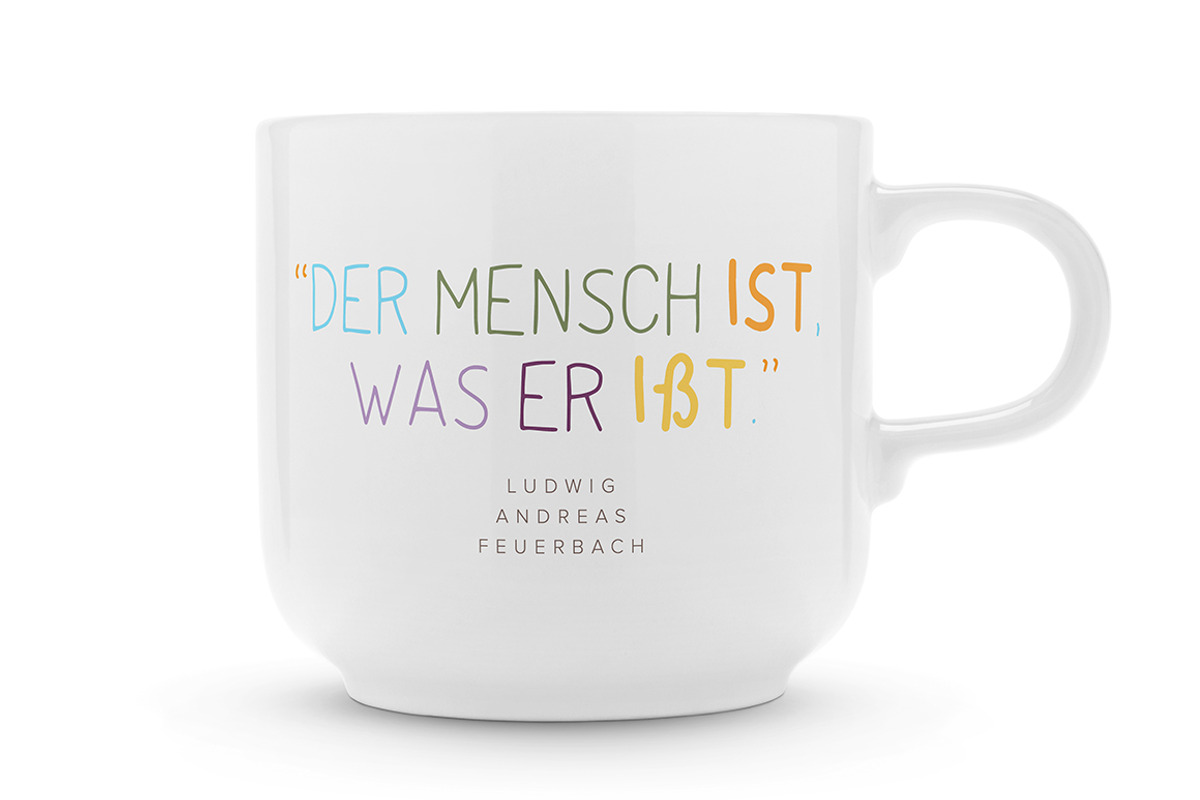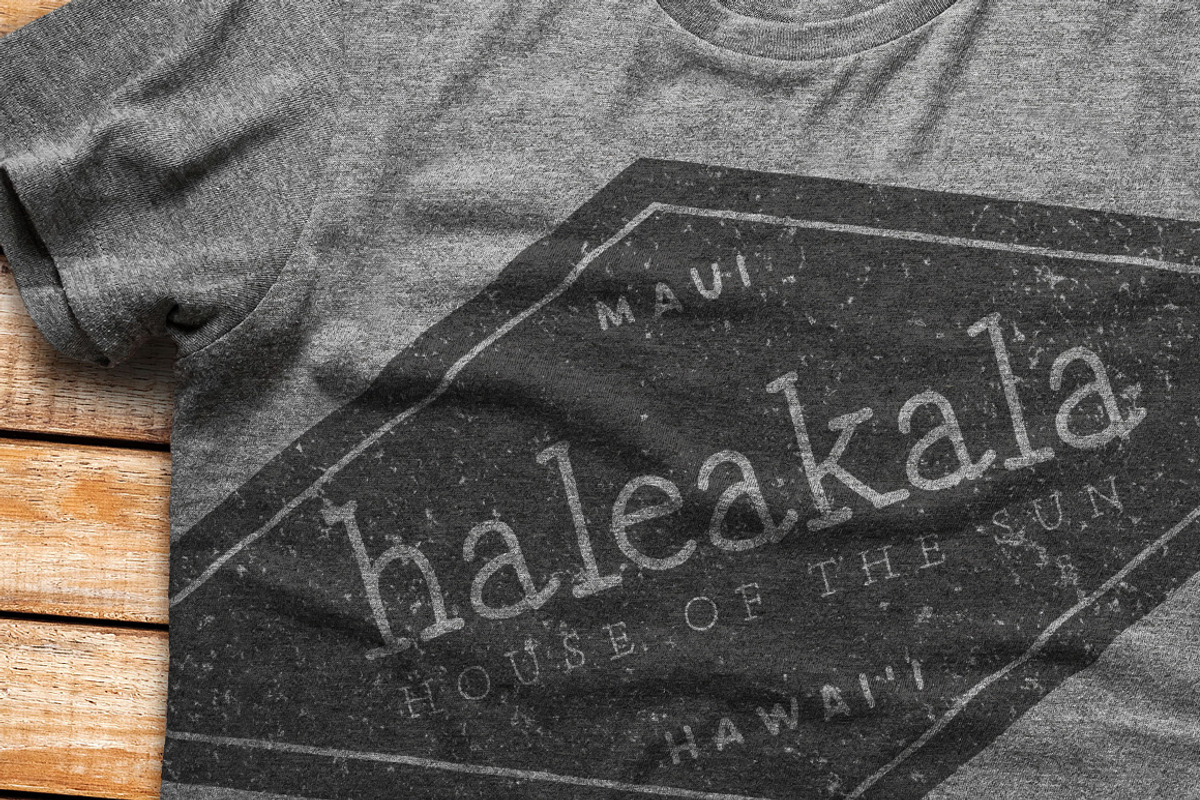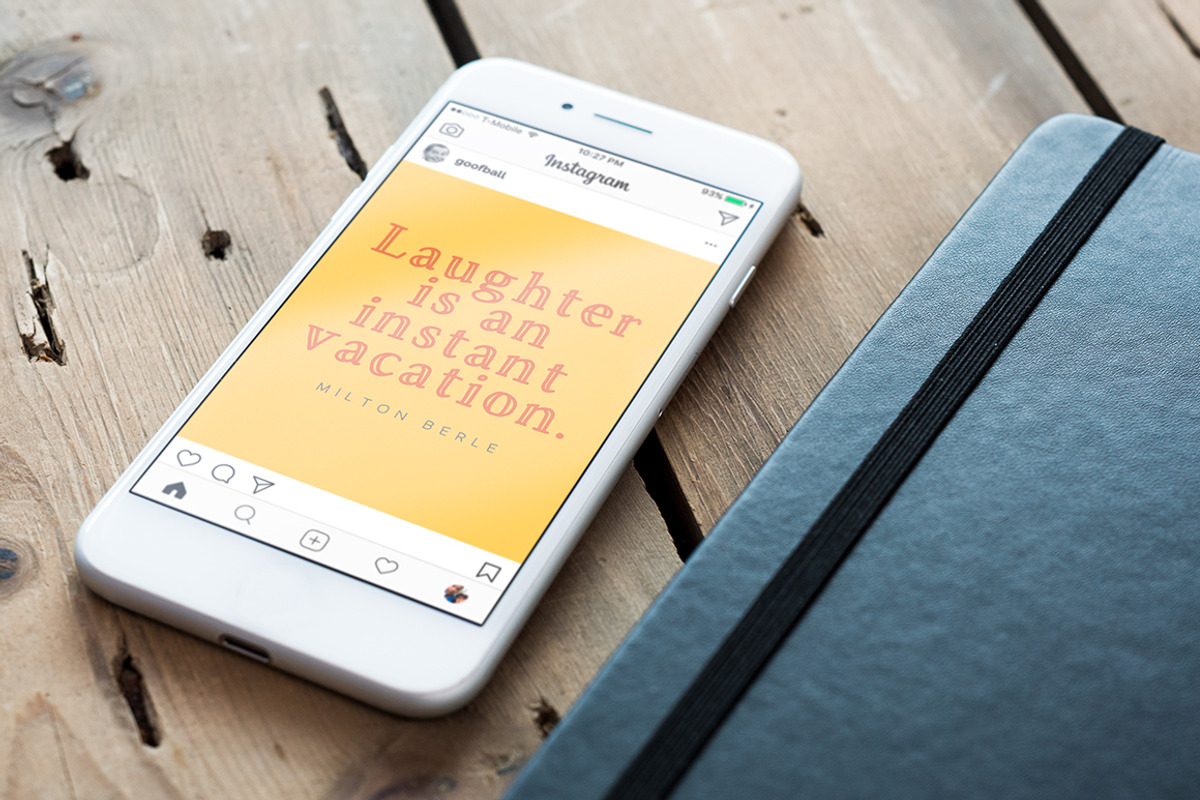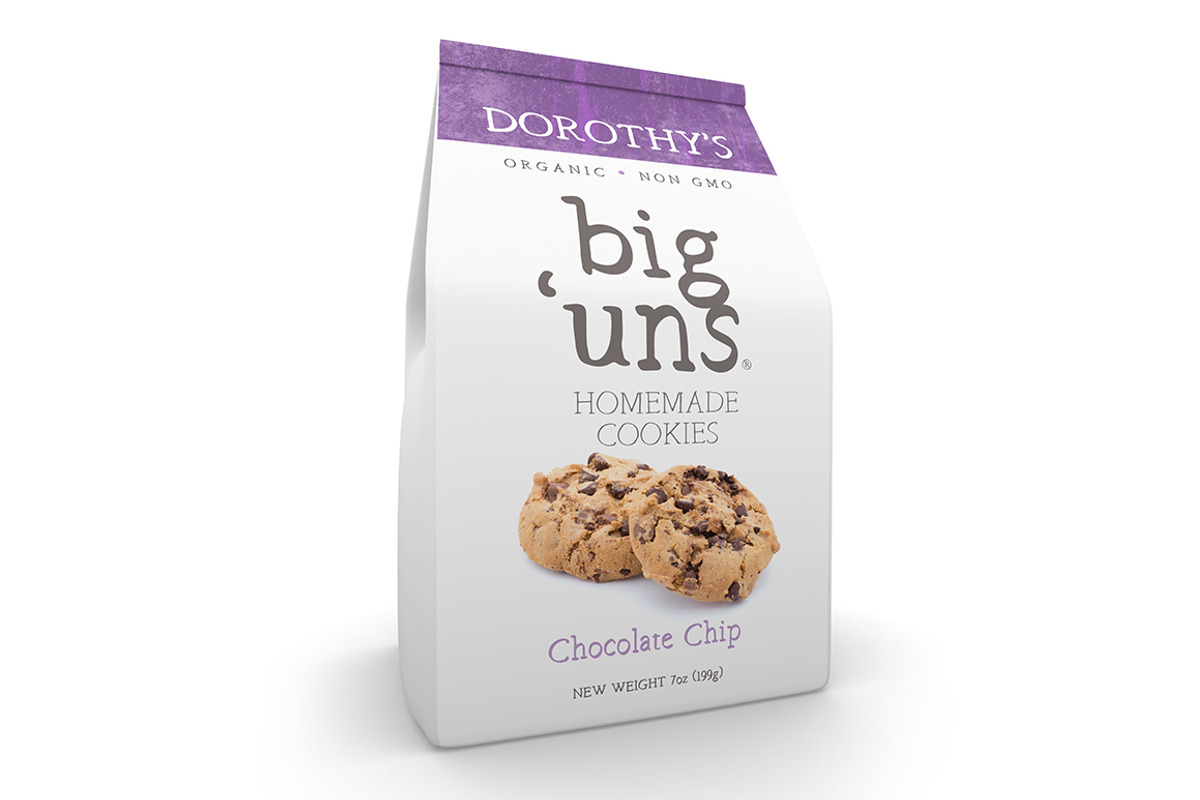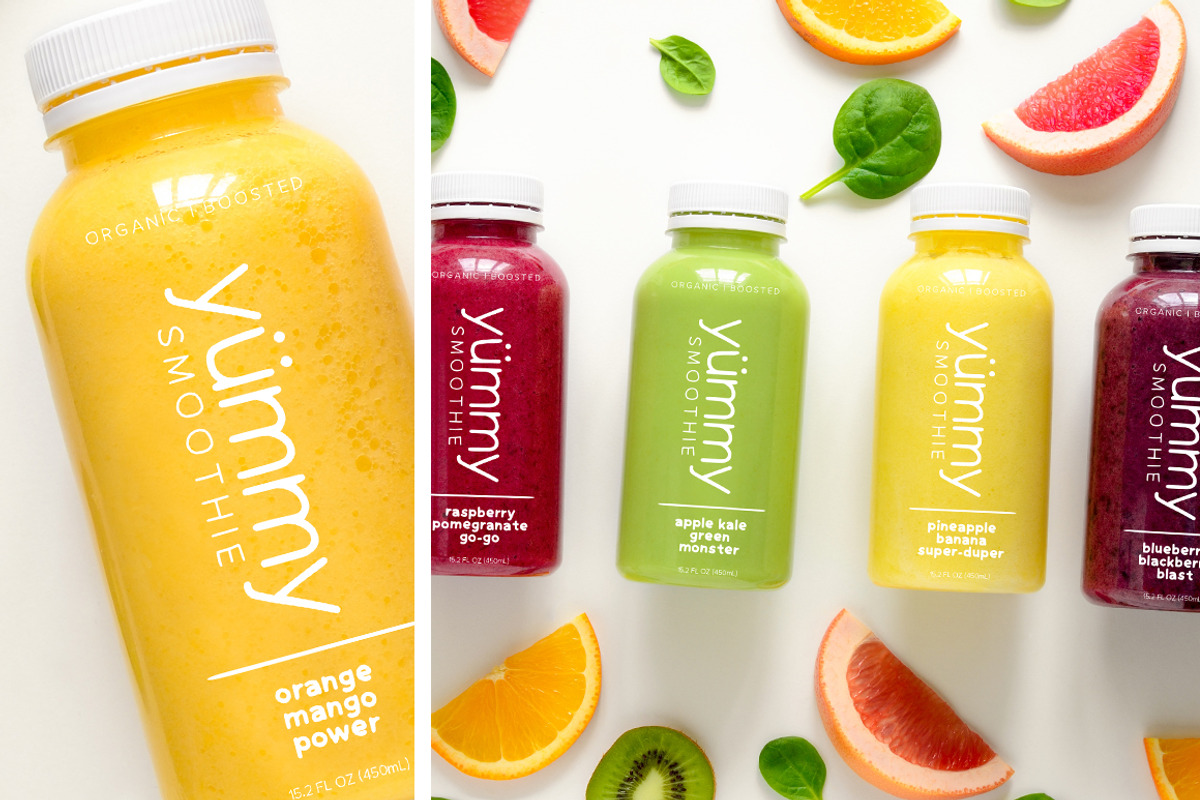
Hand: 5 font bundle, all hand drawn
Hand: A hand drawn font bundle
This bundle includes five hand drawn fonts. They are fun, with structure. Their look and function work well for branding, packaging & editorial design.
Hand Grotesk (in 2 weights)
Hand Condensed Sans (in 2 weights)
Hand Brush Serif (in 3 weights)